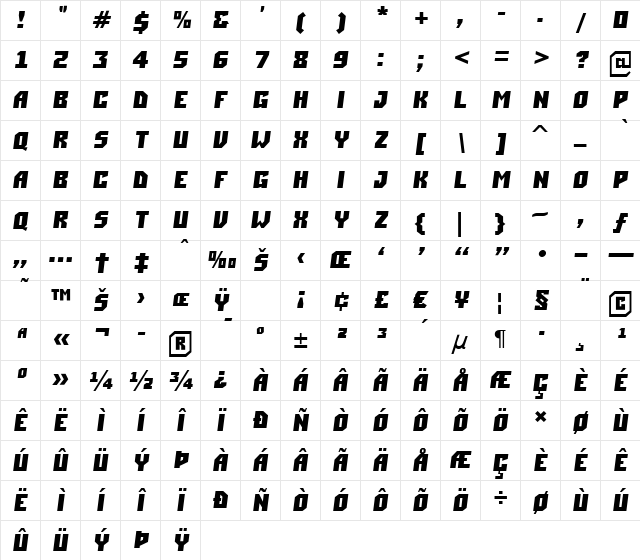
a_Simpler Bold Italic Free Font
a_Simpler Bold Italic
Designer: W.Chufarofsky & M.Slutsker
Design Context for a_Simpler
a_Simpler is a composed and adaptable typeface that performs quietly and consistently across a wide range of design contexts. The slanted form adds forward momentum and visual energy. Its bold stroke weight gives it real presence on the page.